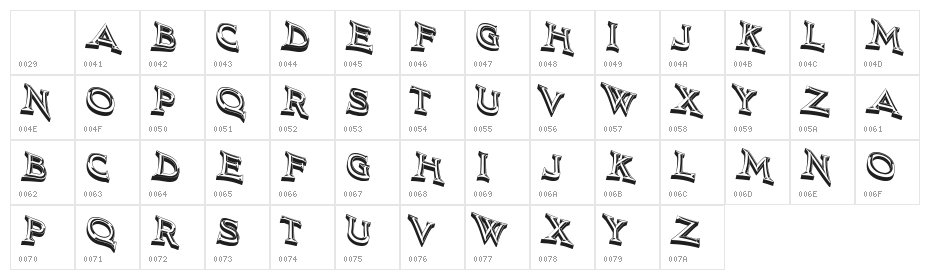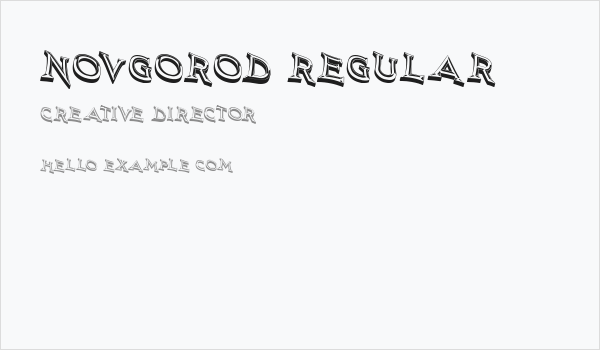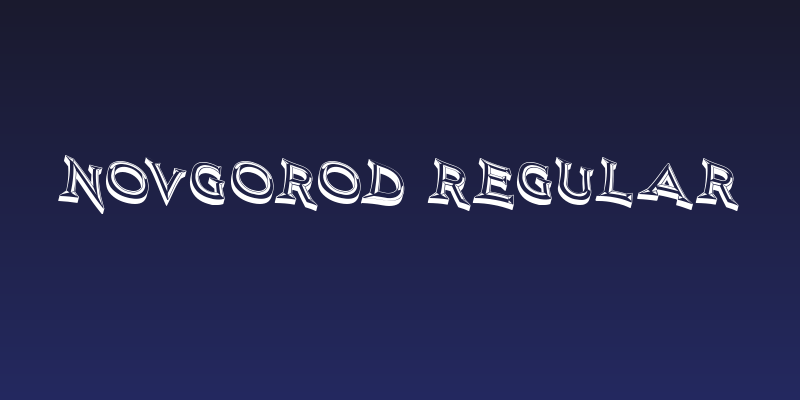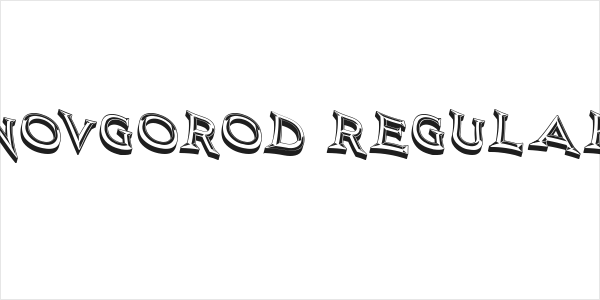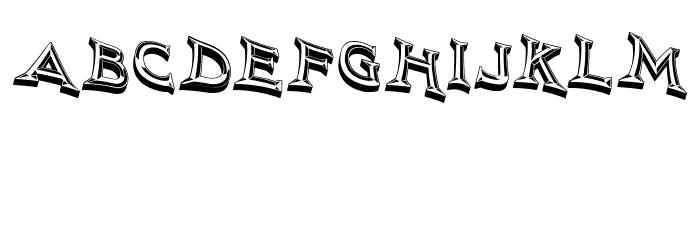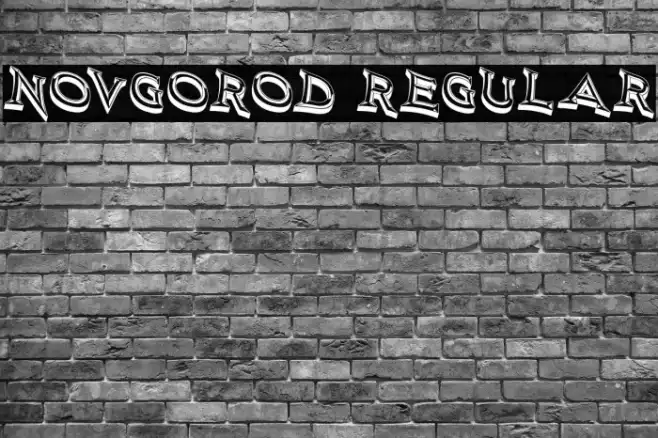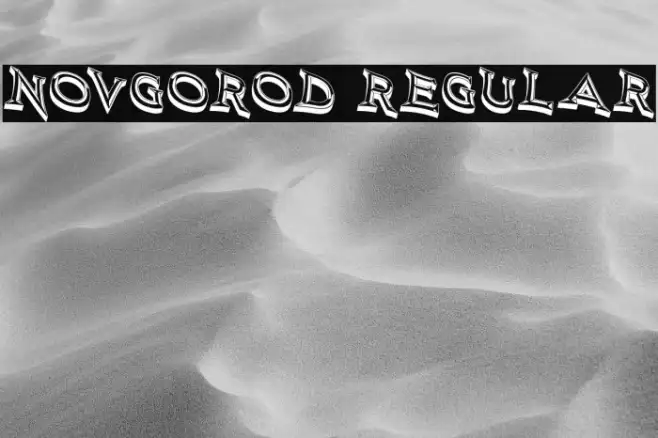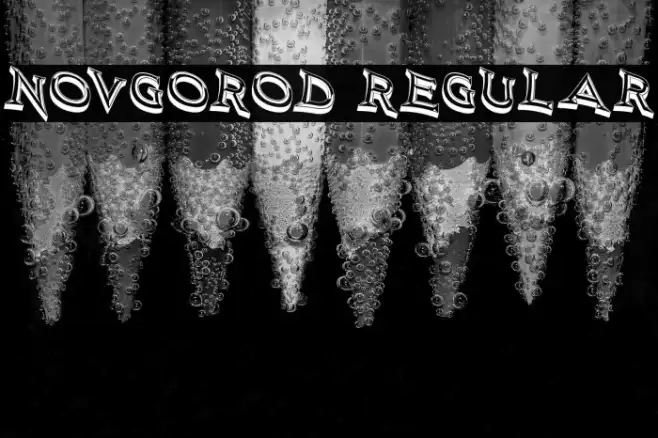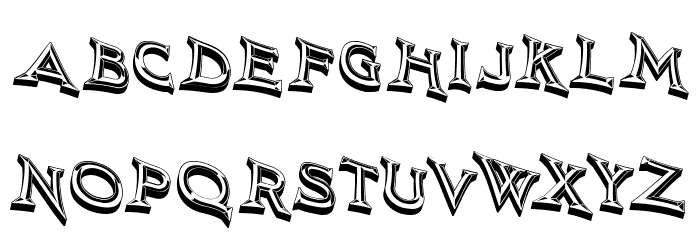
Novgorod Regular Font
Novgorod Regular Description
This font features a bold and dramatic style with a strong presence. The characters have a three-dimensional effect, achieved through the use of shadows and highlights, giving them a carved appearance. The serifs are pronounced and angular, adding to the font's boldness. The overall design is reminiscent of medieval or gothic styles, making it suitable for projects that require a historical or fantasy theme. The uppercase letters are particularly striking, with each character exhibiting unique details that enhance the font's decorative nature.
| Overall Style | Gothic, Medieval |
| Proposed Projects | Ideal for fantasy book covers, historical event posters, or themed invitations. |